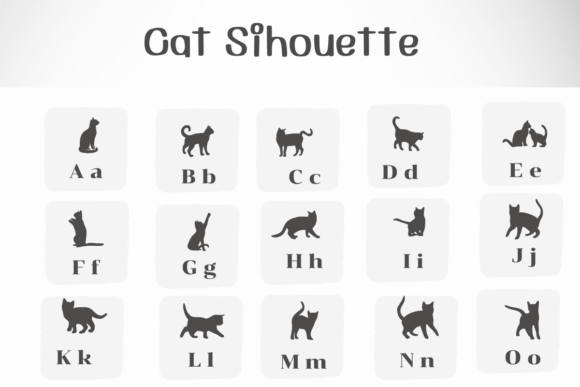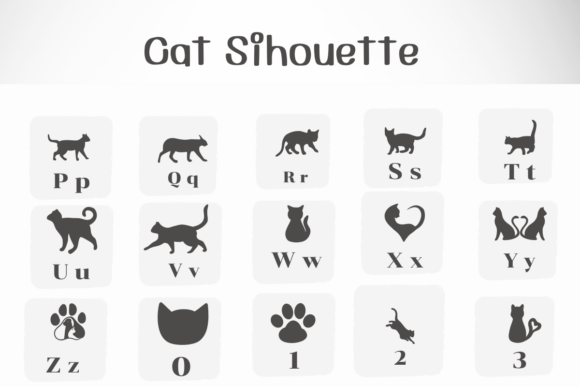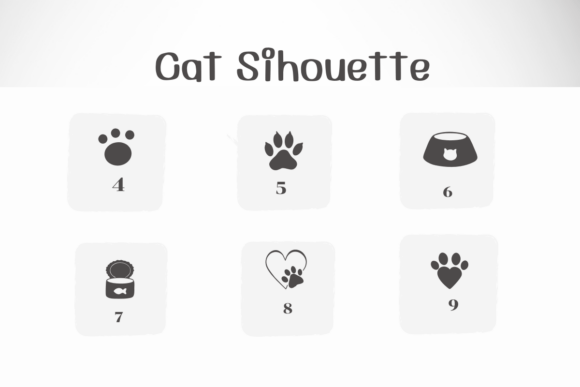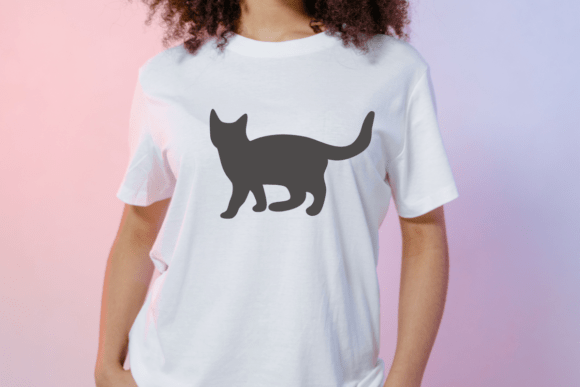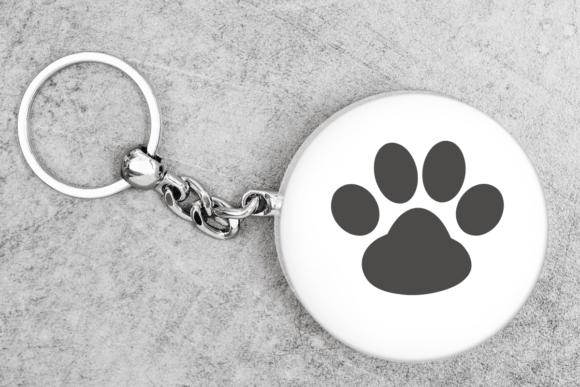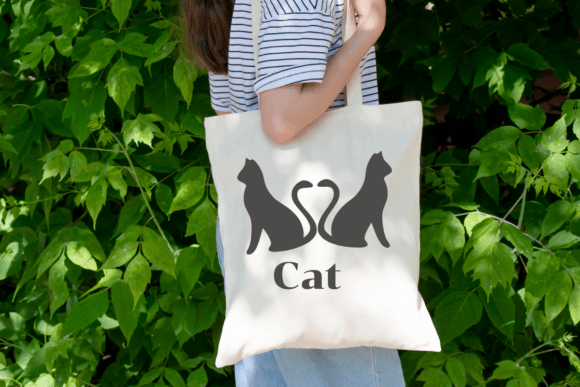
Bring Feline Flair to Your Designs with the Purr-fect Font
You know that moment when you’re brainstorming ideas for a creative project and everything just clicks? Maybe it’s a unique wedding invitation, a DIY craft, or a logo that screams personality. Whatever it is, it’s that spark of inspiration that sets your imagination ablaze. For designers, finding the right font can be the difference between a good design and a great one.
Enter the Cat Sihouette Font, a delightful dingbats font that brings a fun, feline twist to your projects. With its playful silhouettes, this font is perfect for adding a whimsical touch to your designs. Whether you’re a seasoned pro or a design newbie, the Cat Sihouette Font is a valuable addition to your creative toolkit.
Cat Sihouette Font Key Features
- Unique Characteristics: The Cat Sihouette Font features a distinctive silhouette of a cat, making it a unique and eye-catching choice for designers and artists.
Designer Review: Cat Silhouette Font
I recently had the chance to work with the Cat Silhouette Font, and I must say, it’s a unique addition to any design project. Here’s my honest take on this quirky font.
- ✨ Uniqueness: Cat Silhouette Font is a one-of-a-kind font that’s sure to grab attention. Its whimsical design makes it perfect for adding a touch of personality to your designs.
- ✨ Versatility: Despite its quirky nature, Cat Silhouette Font is surprisingly versatile. It can be used in a variety of contexts, from logos and branding to social media graphics and advertisements.
- ✨ Legibility: The font is surprisingly easy to read, especially in larger sizes. This makes it a great choice for headings and titles.
- ⚠️ Limited use in body text: Due to its quirky design, Cat Silhouette Font may not be the best choice for large blocks of body text. It’s best used sparingly to add visual interest.
- ⚠️ Limited font sizes: The font may become difficult to read at very small sizes, so it’s best to use it in larger font sizes or in conjunction with other fonts.
Overall, I think the Cat Silhouette Font is a fun and unique addition to any design project. While it may have some limitations, its versatility and legibility make it a great choice for designers looking to add a touch of personality to their work.
The Cat Silhouette font is perfect for:
- Cat-themed designs and merchandise.
- Whimsical and playful designs.
- Children’s book illustrations and designs.